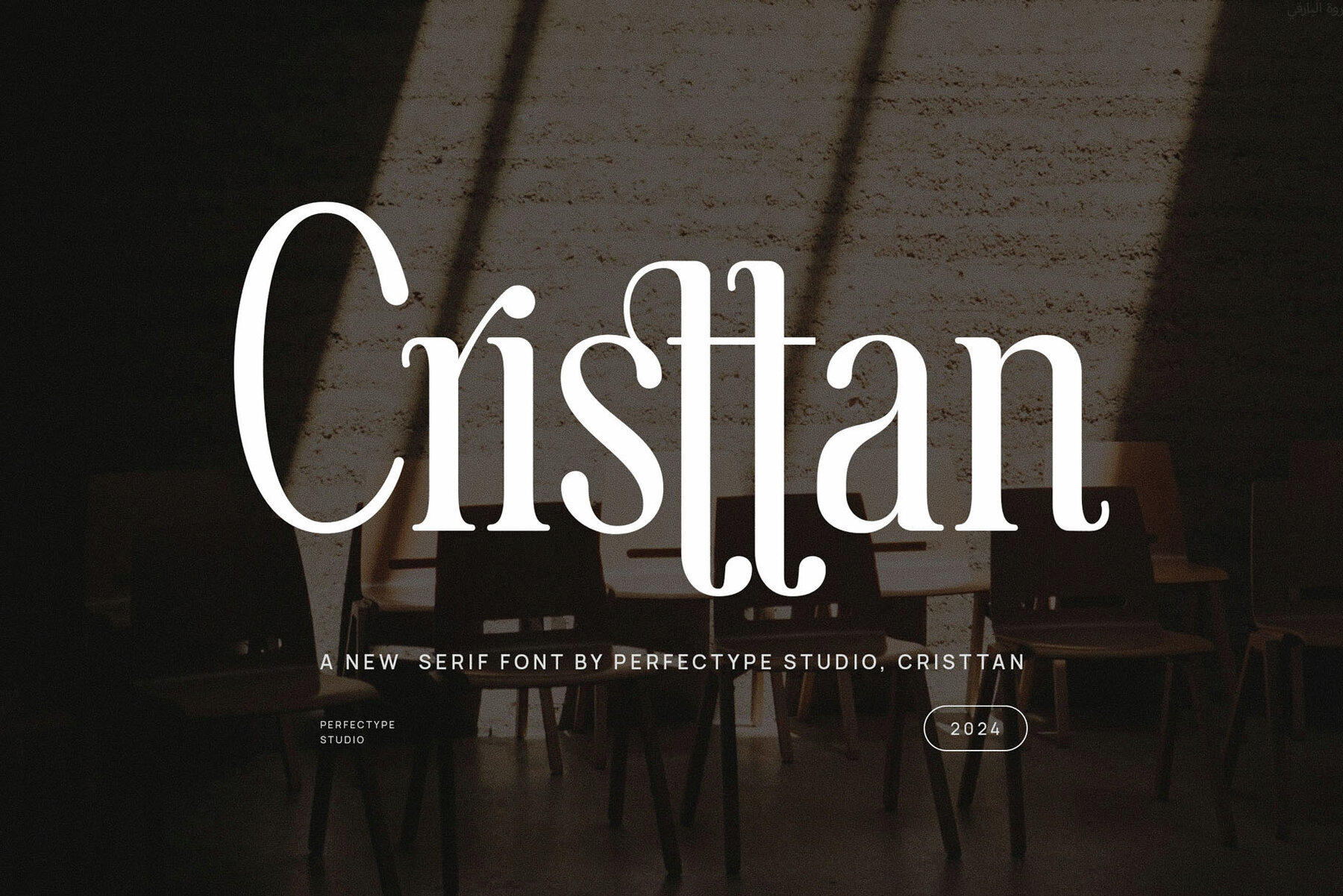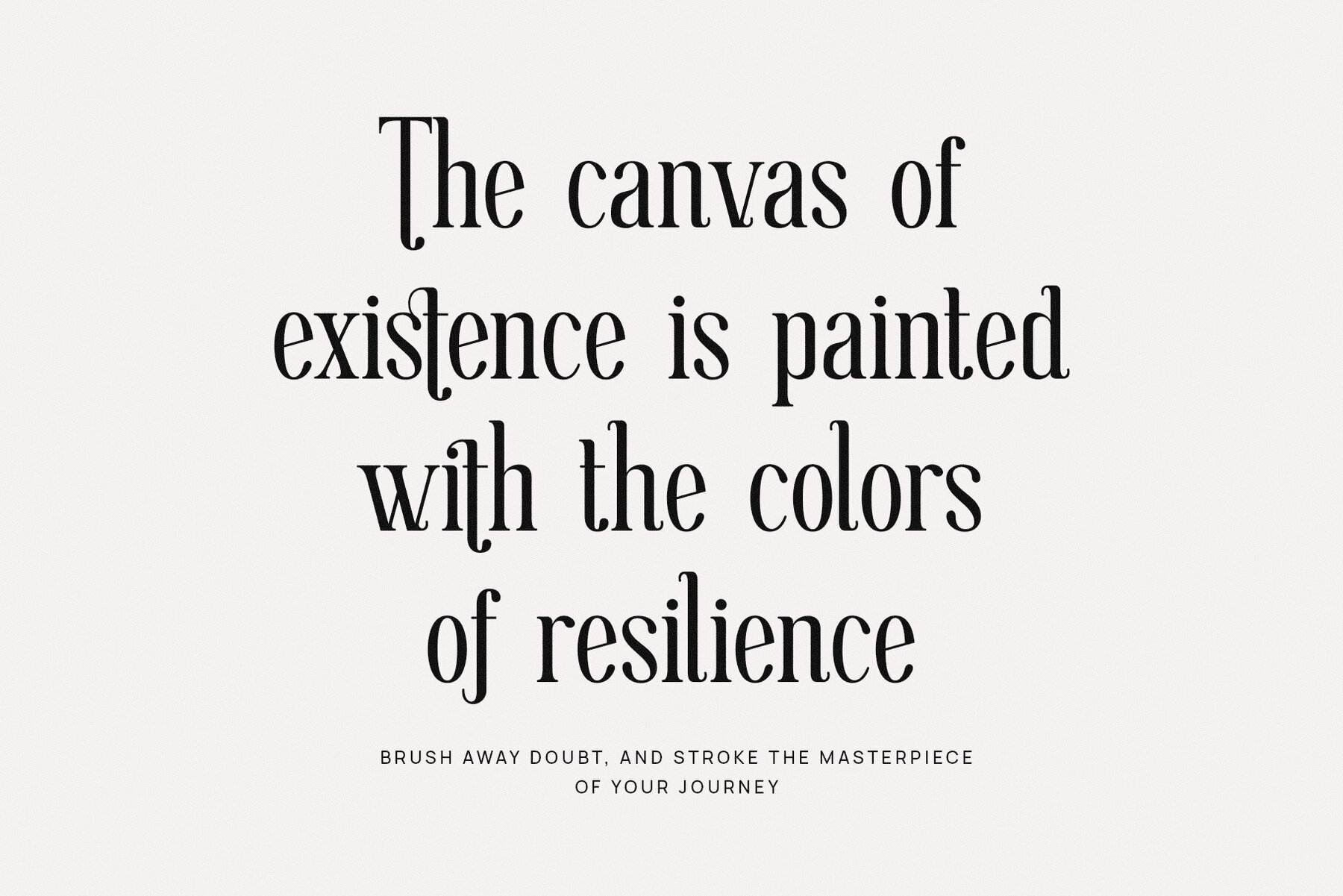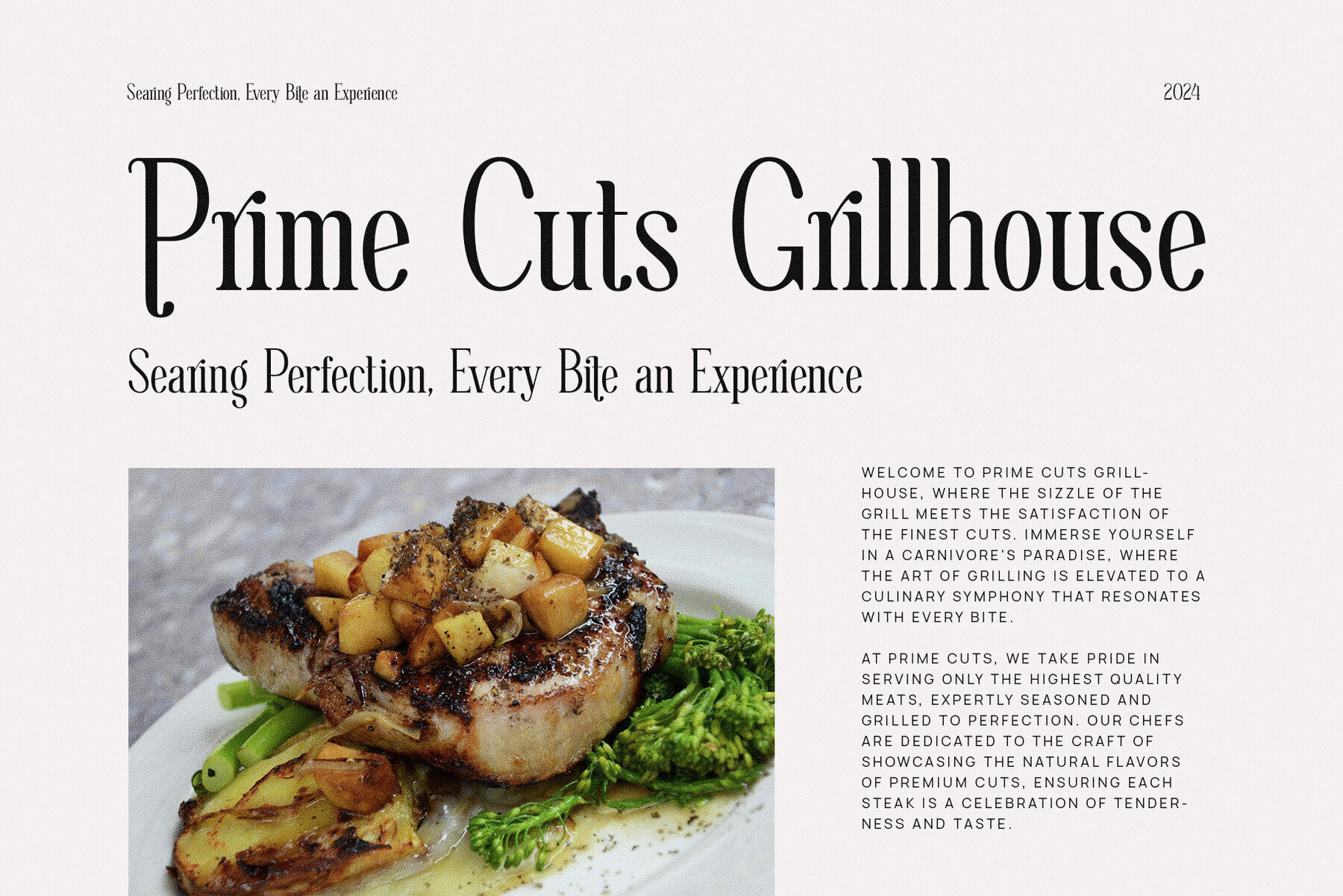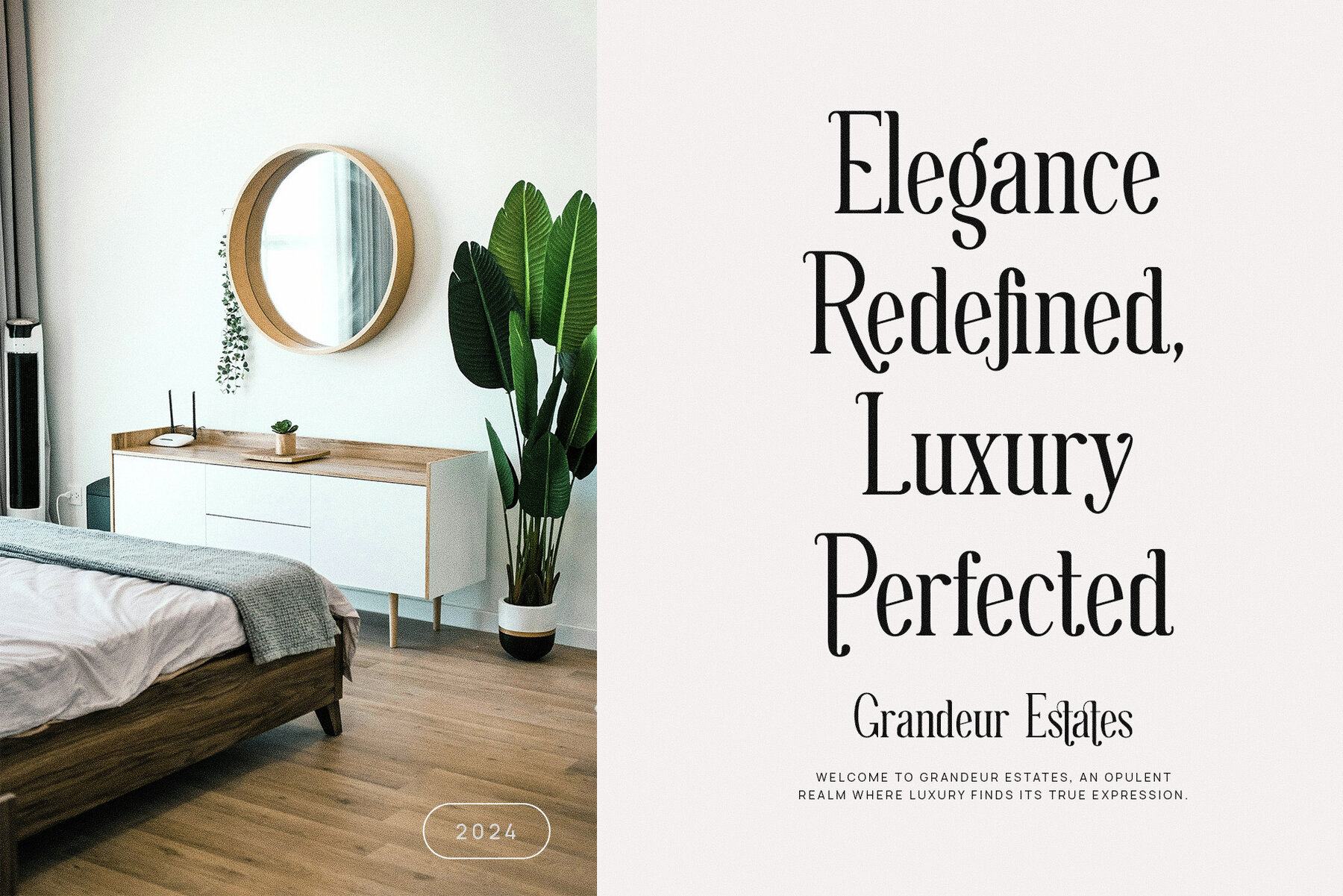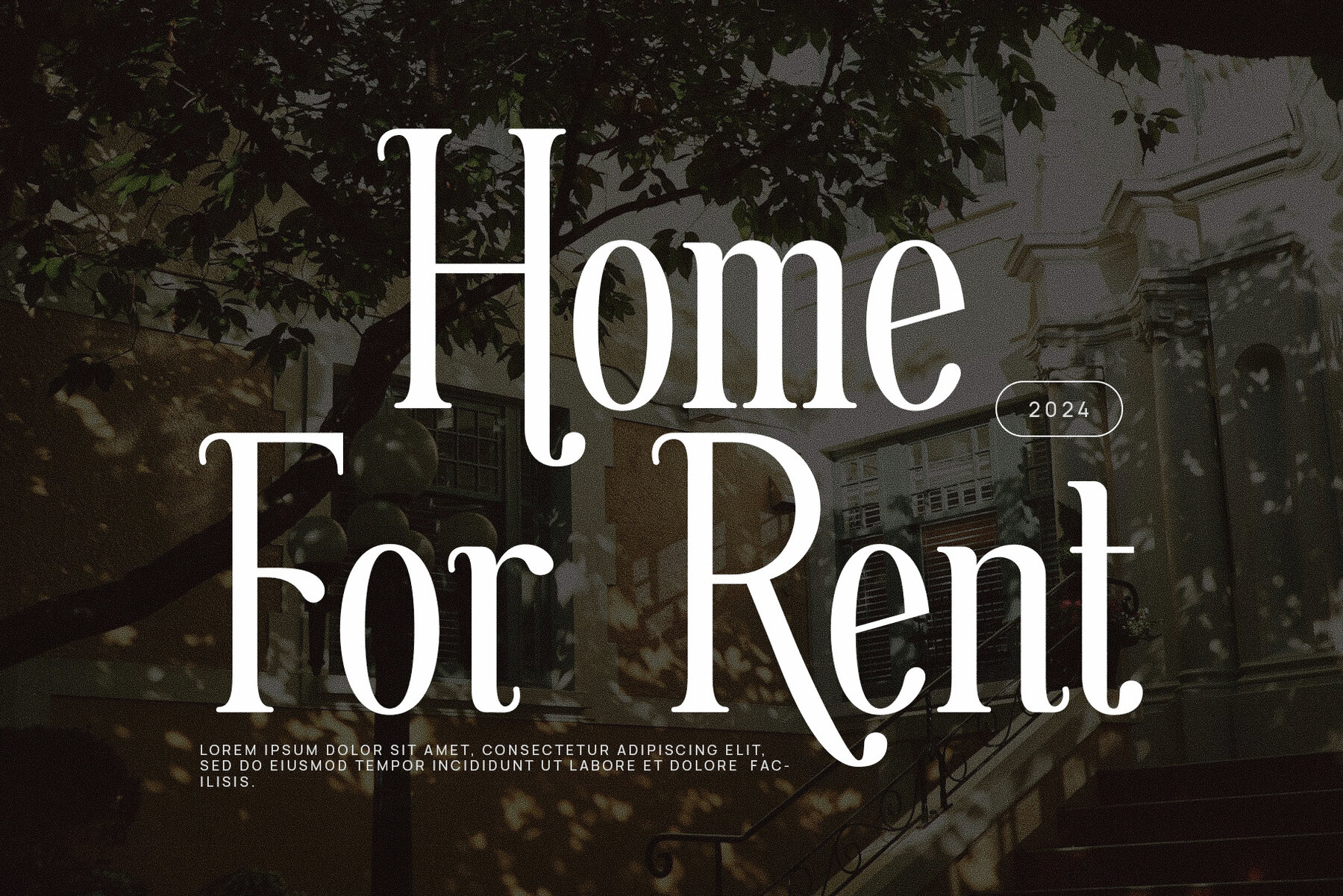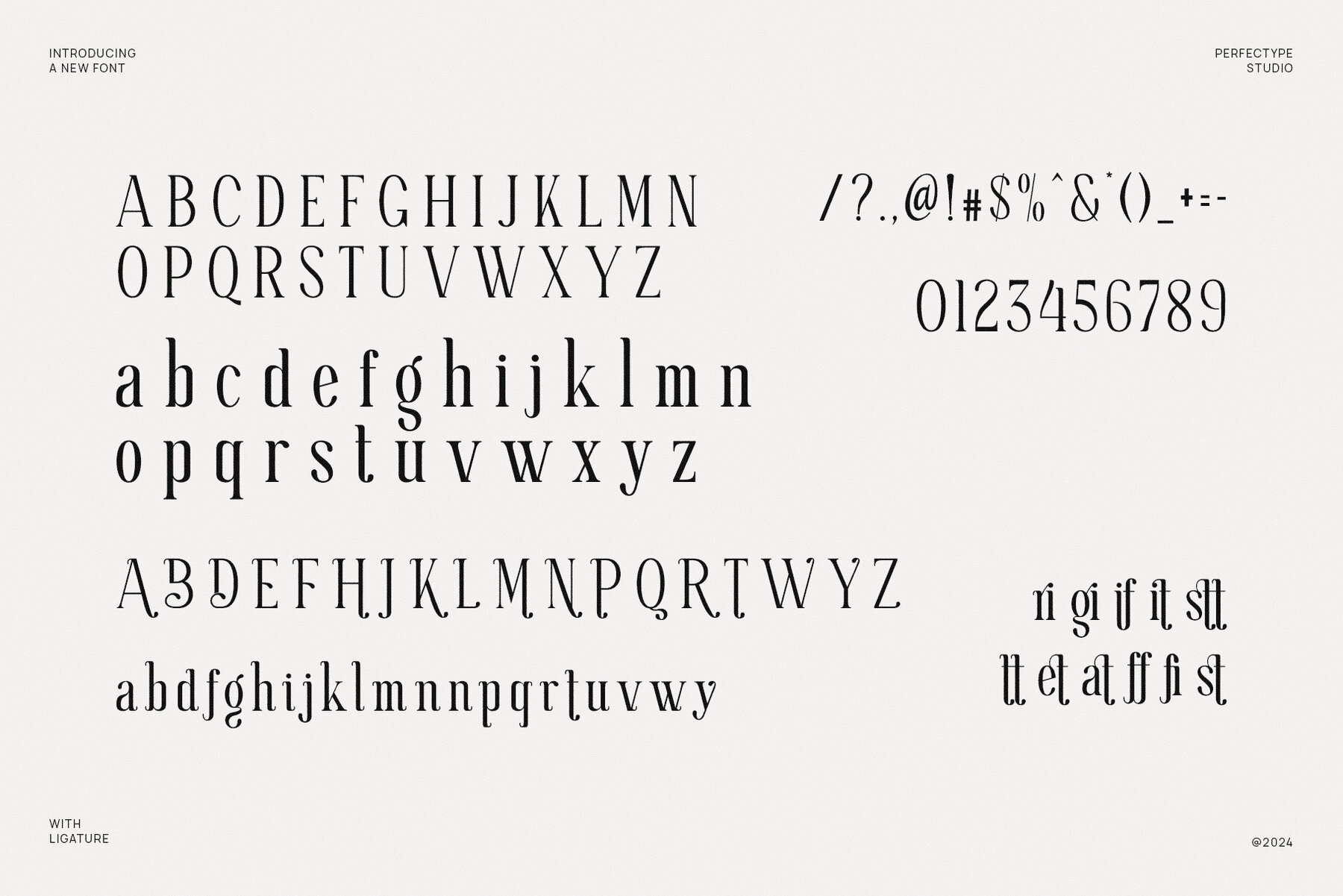
Cristtan Font
Cristtan
Cristtan Elegant Serif Font combines modern sophistication with timeless elegance, delivering a typeface that's perfect for high-end design projects. The font features refined serifs, unique letterforms, and elegant curves, making it a standout choice for creating sophisticated logos, branding materials, and luxury product designs. Cristtan's carefully crafted ligatures and alternate characters provide customization options that ensure each design feels polished and distinctive.
This versatile font is ideal for upscale projects in industries such as fashion, food, lifestyle, and boutique branding. Whether designing a chic magazine layout, a sleek website, or compelling advertisements, Cristtan adds a touch of class that enhances any design. Its fluid typography, achieved through ligatures and alternate features, gives designs a personal and tailored touch, enhancing readability in both print and digital media.
Cristtan is an essential tool for designers aiming to create premium logos, stylish packaging, and sophisticated editorial content. Its clean lines and elegant curves deliver unmatched elegance and charm, making it applicable for any project where luxury and refinement are paramount. With a modern aesthetic and classic appeal, Cristtan elevates your creative projects to the highest standards of design.